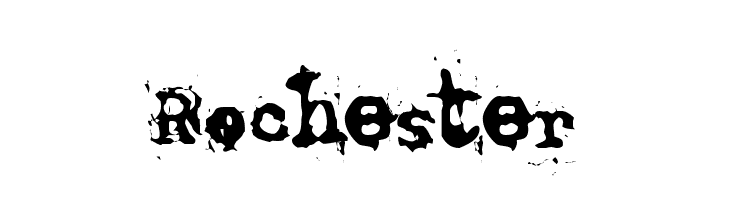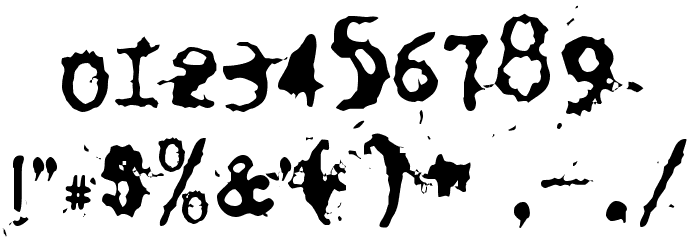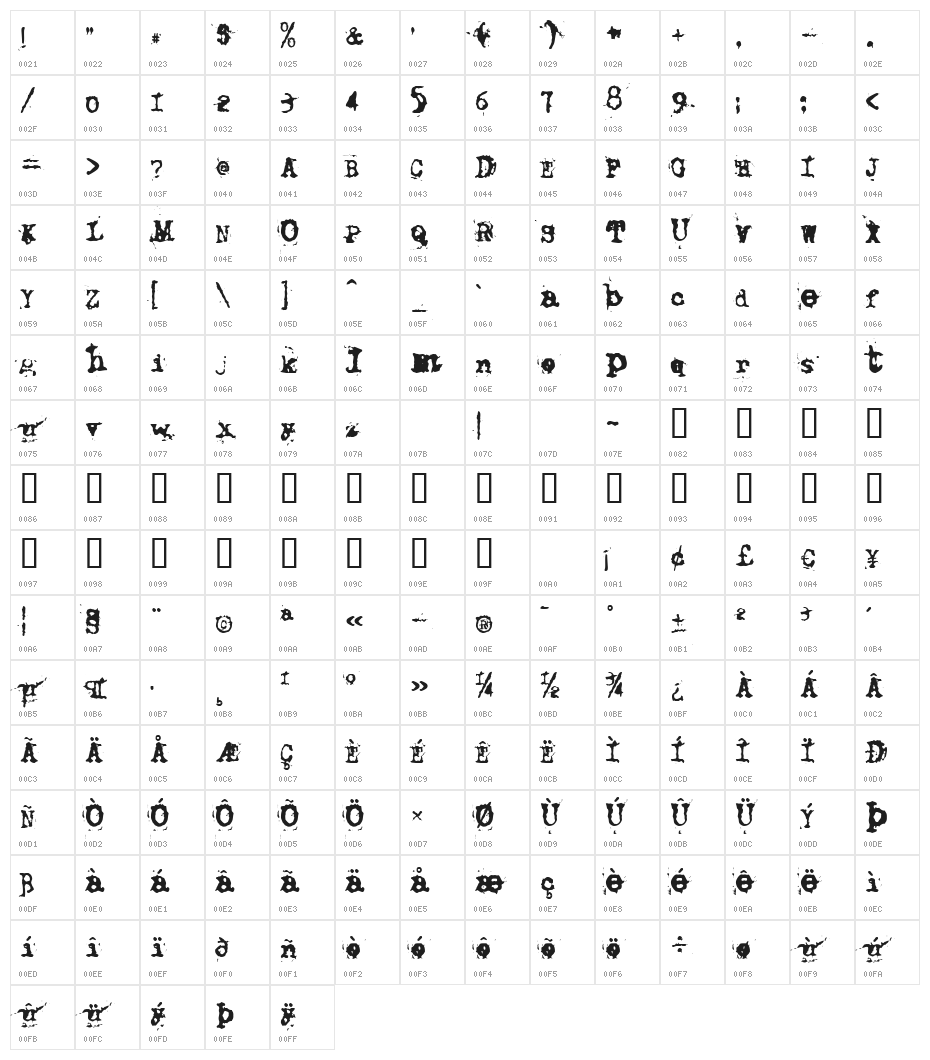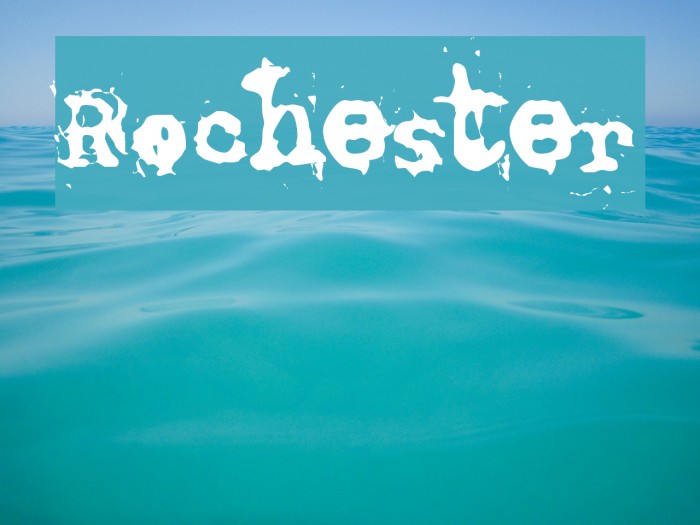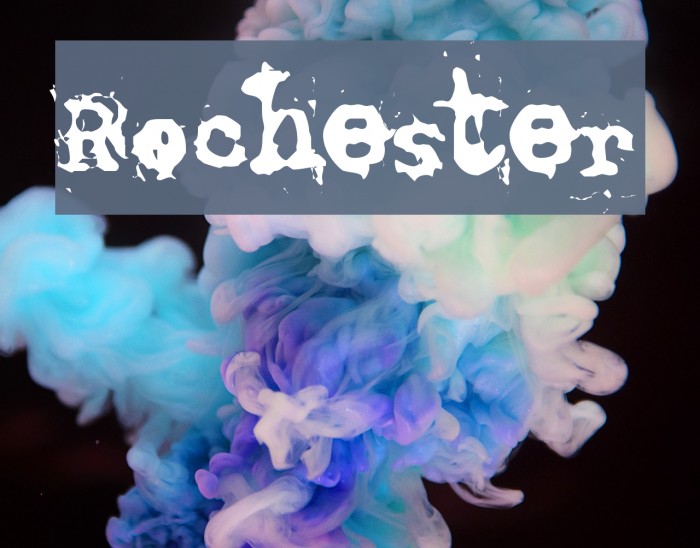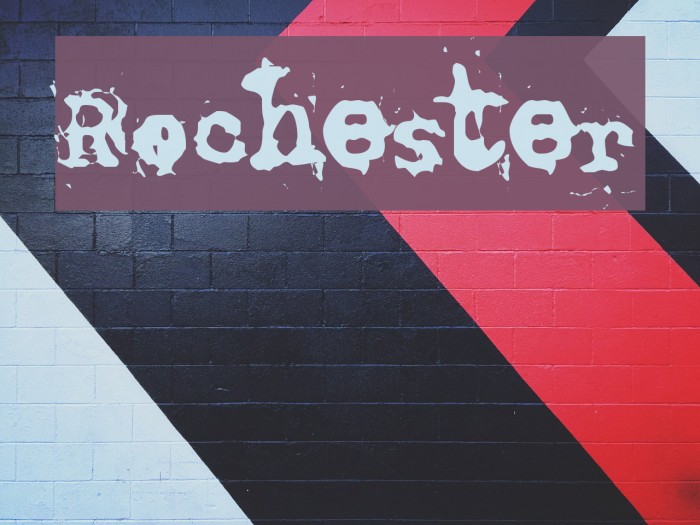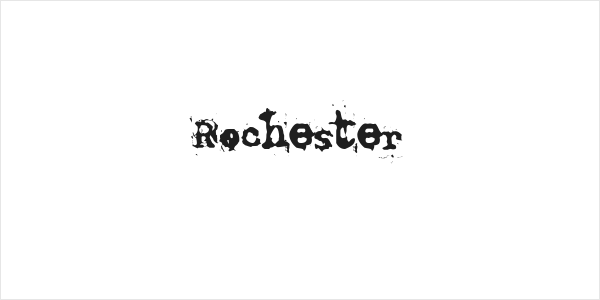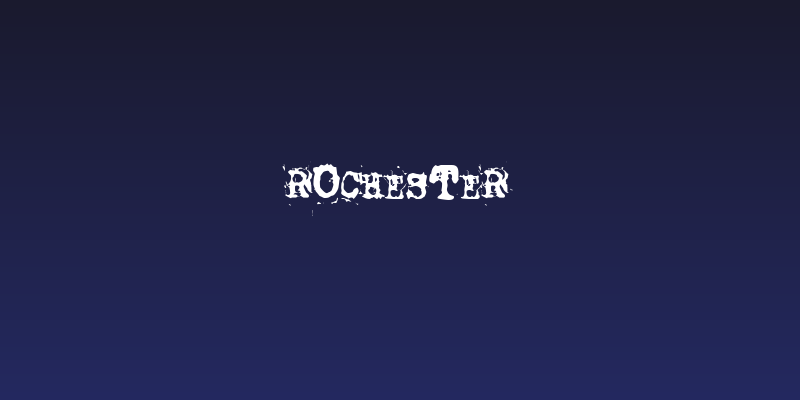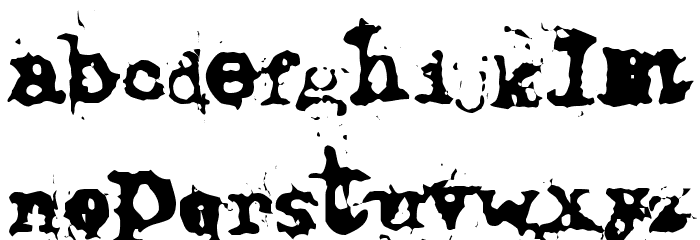
Rochester Font
Rochester Description
This font exhibits a highly distressed and grungy appearance, characterized by irregular edges and a weathered texture. The letters are bold and substantial, with a rough, uneven finish that gives them a vintage, worn-out look. The uppercase and lowercase characters maintain a consistent style, with exaggerated serifs and a hand-crafted feel. Numbers and special characters follow the same aesthetic, adding to the overall cohesive design. The font's unique style makes it stand out, offering a sense of history and ruggedness.
| Proposed Projects | Ideal for projects needing a rustic or historical feel, such as posters, album covers, or themed event invitations. |